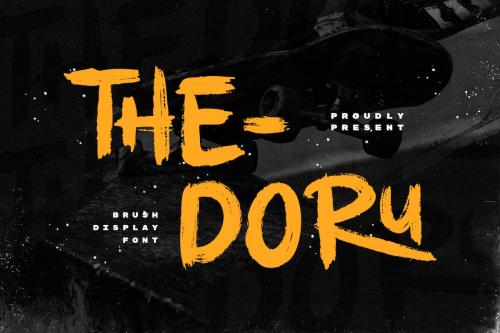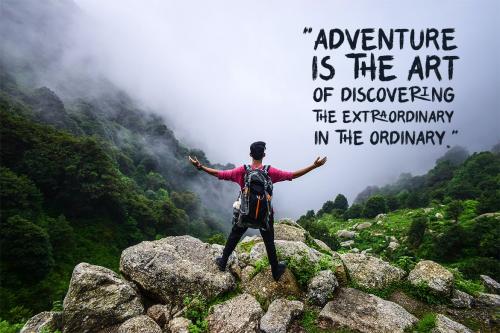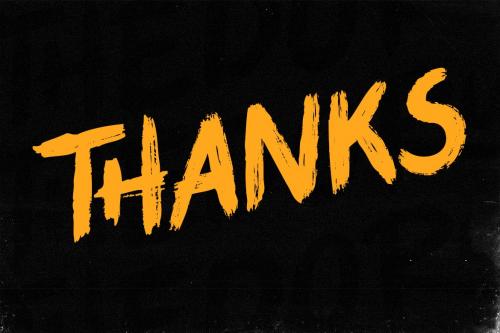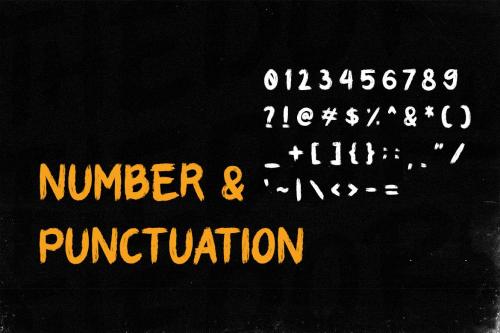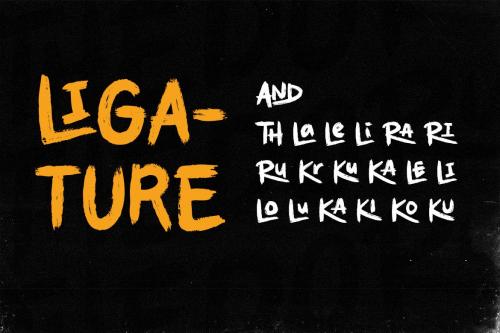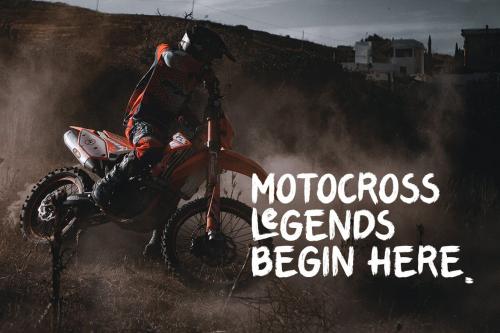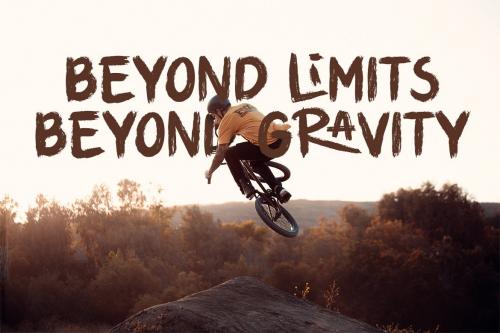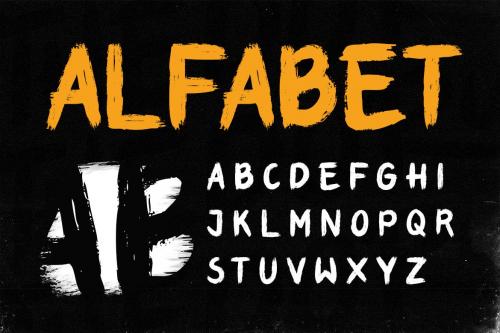
多尔-运动刷展示字体
Thedoru - Sport Brush Display Font
**Thedoru - Sport Brush Display Font** is an awesome with modern cutouts, and a dynamic slant. Ideal for Poster titles, Flyer music event, Skateboarding, Urban street style, streetware and monograms or other modern dynamic text. Olskate compares favorably with legibility and size, creating the effect of power. Designed as a fast and dynamic font, but with a slightly different font design, check it out and grab it right away.